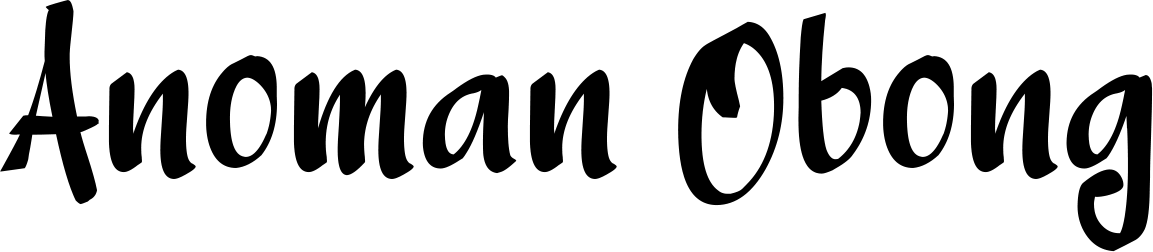
A Anoman Obong Font
A Anoman Obong, communicating a fun vibe, is a brush font. This font can successfully be used to convey a cute and artistic impression. A Anoman Obong is best used in creative contexts such as book covers, advertising, and logo design. There are other similar fonts on our website, don’t miss out on them.